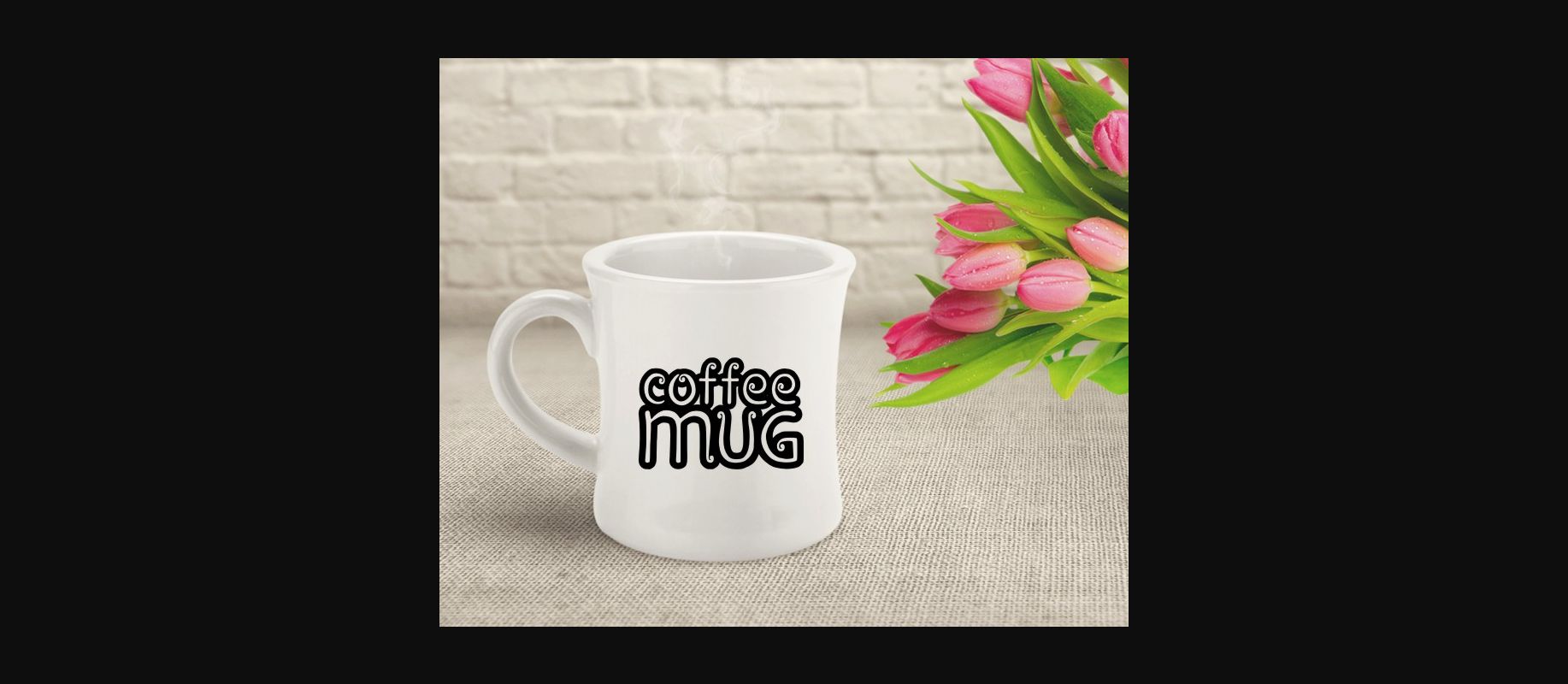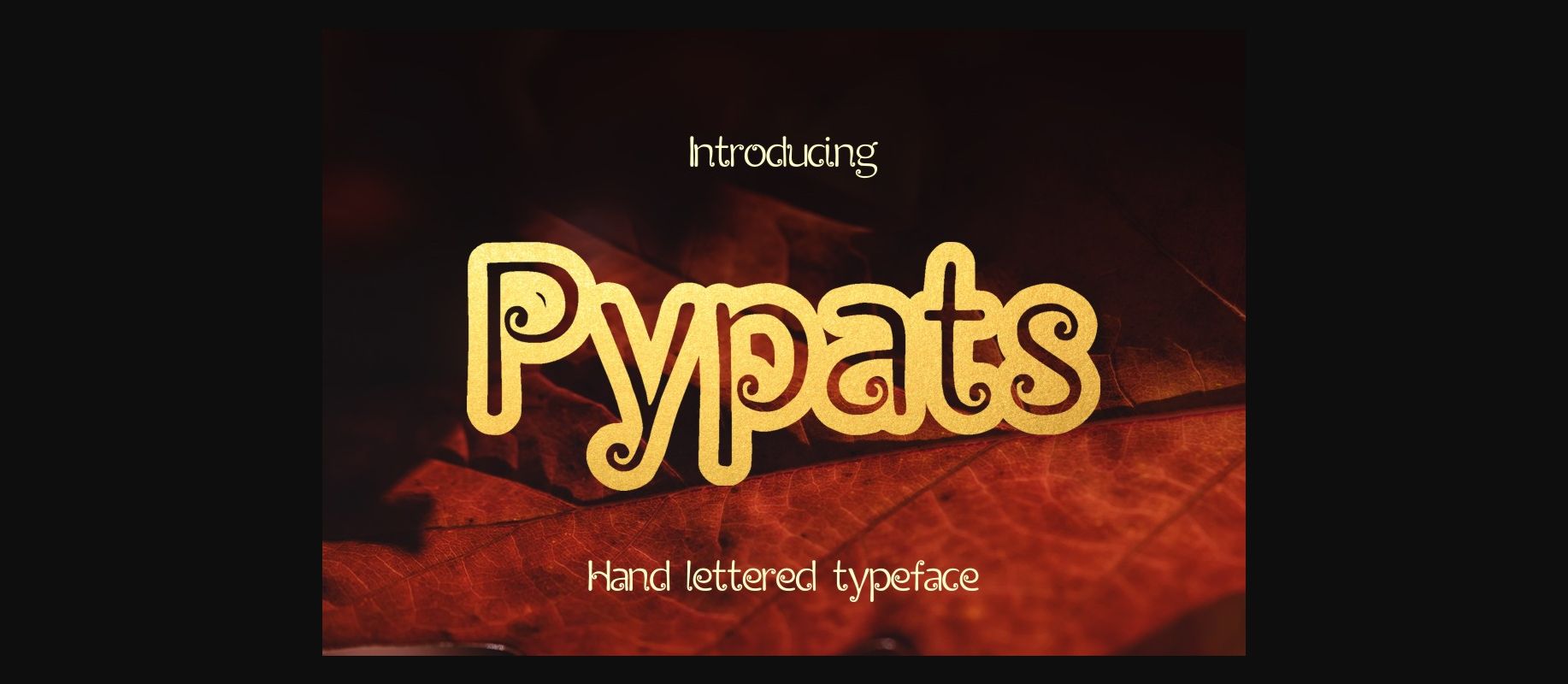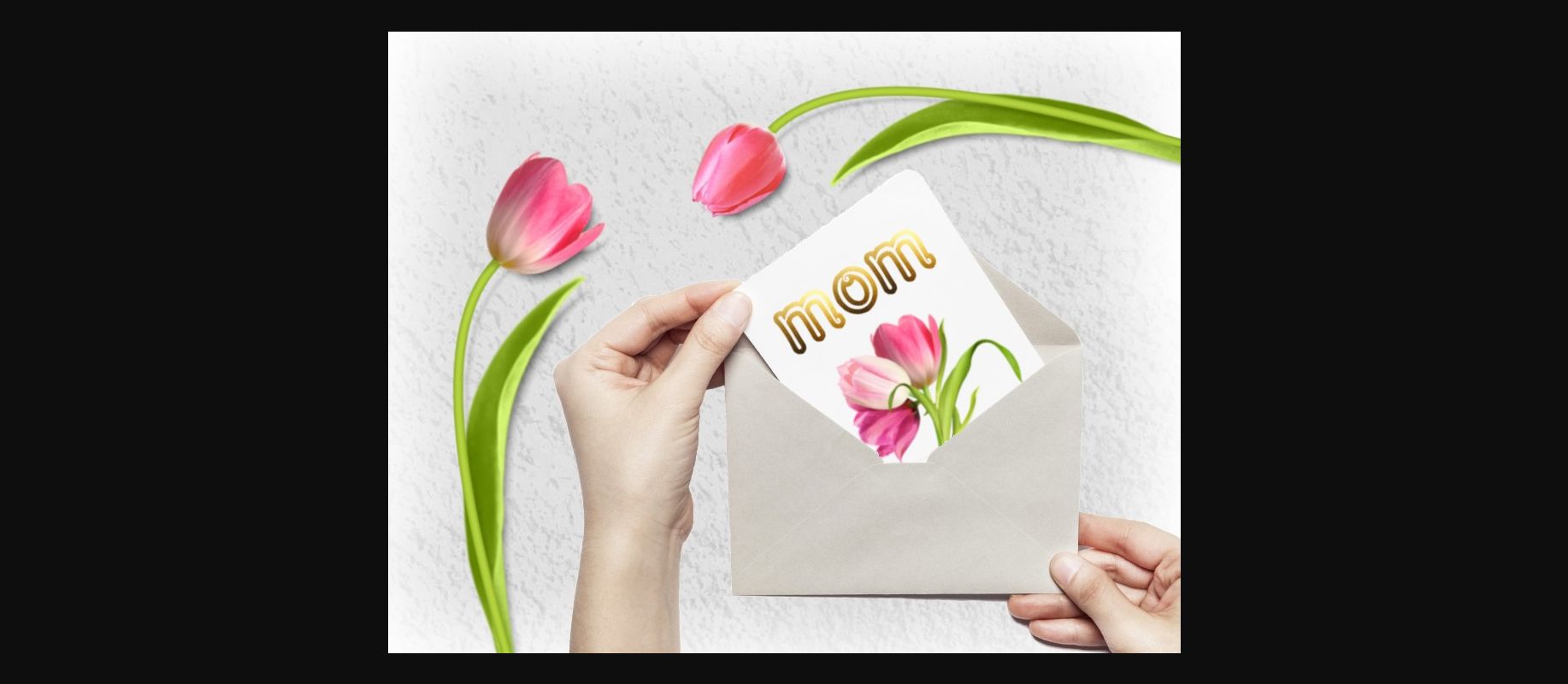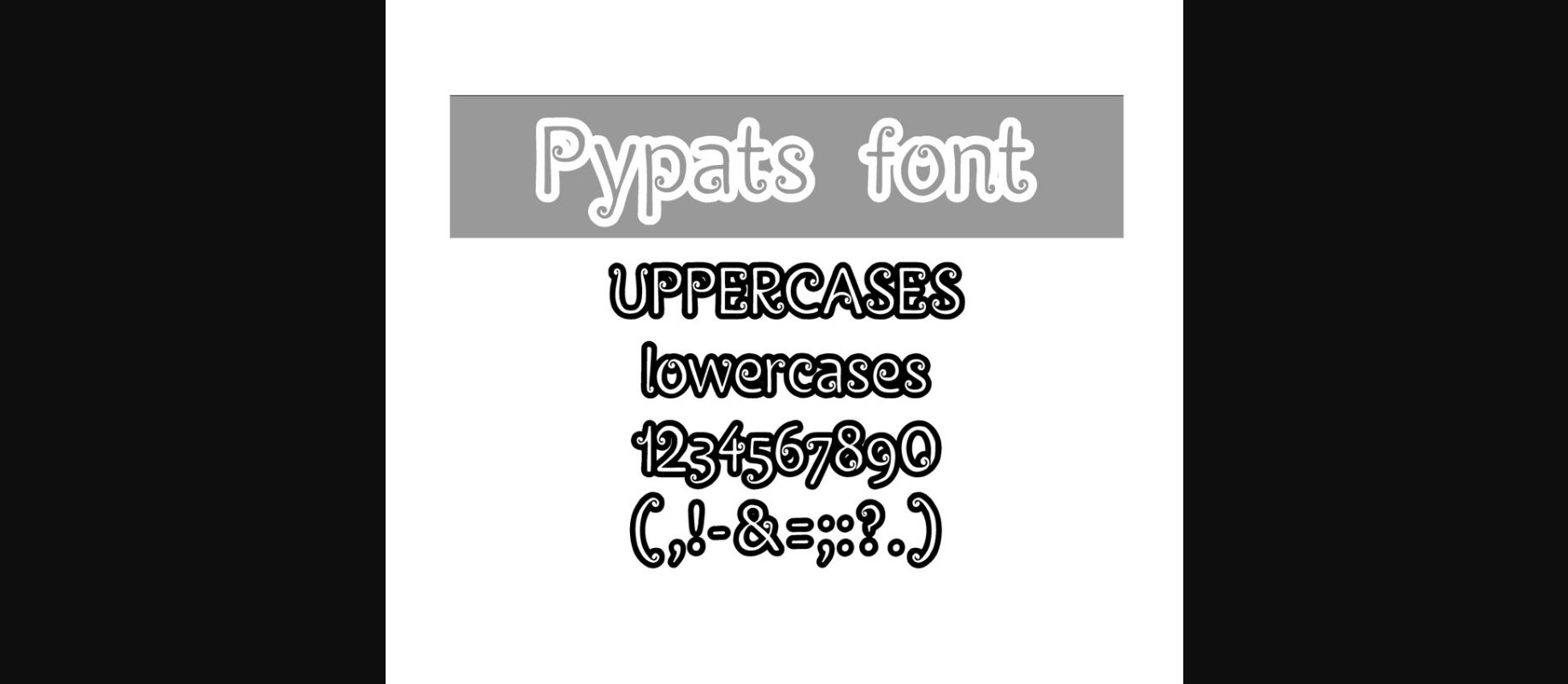
HomeDecorative FontsPypats Font Decorative Fonts Pypats Font FacebookXPinterestWhatsApp 1 of 4 About Pypats Font Pypats is a hand drawn decorative font created by Eva Barabasne Olasz. DOWNLOAD NOW People also explored Chameleon Font Chery Bomber Font Penguin Font Wowangle Font Welcome Home Font Chili Pumpkin Font Adinda Sayang Font Lemonhead Font Sany Cimahen Font 342 0 TagsPypatsPypats Font Previous articleRocking Letters FontNext articleDigizen Font LEAVE A REPLY Cancel reply Comment: Please enter your comment! Name:* Please enter your name here Email:* You have entered an incorrect email address! Please enter your email address here Website: Save my name, email, and website in this browser for the next time I comment. Personal Use Free Zelega Zenega Personal Use Free Read more about this font Sweety Blue Personal Use Free Read more about this font Berry Personal Use Free Read more about this font Waturaden Personal Use Free Read more about this font BLOG Exploring Font Trends Shaping Communication in the Digital Era Fonts, like all design elements, are subject to trends. They play a crucial role in communicating a brand's personality,... Best Fonts for T-Shirt Design – Top 2025 Picks Elegant Wedding Invitation Fonts – Handwritten & Script Fonts How to Install and Use Fonts on Windows, macOS, and Web Projects